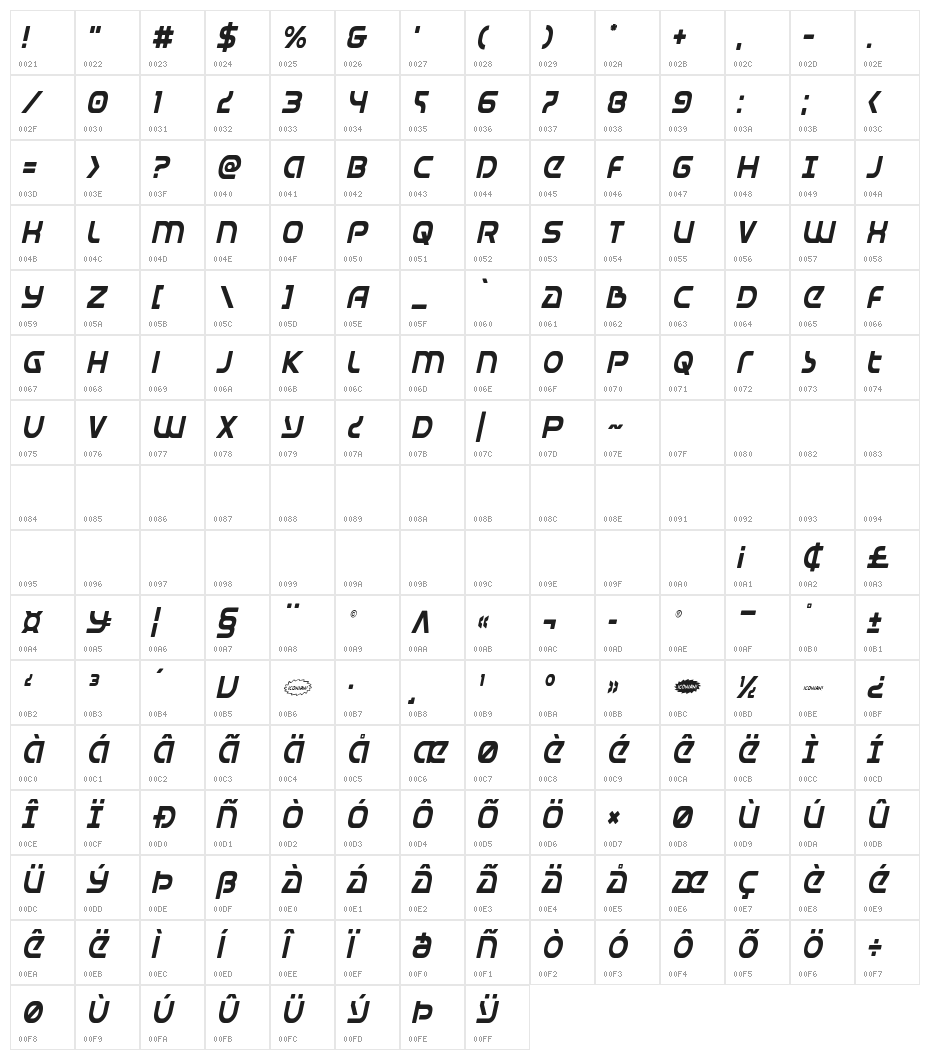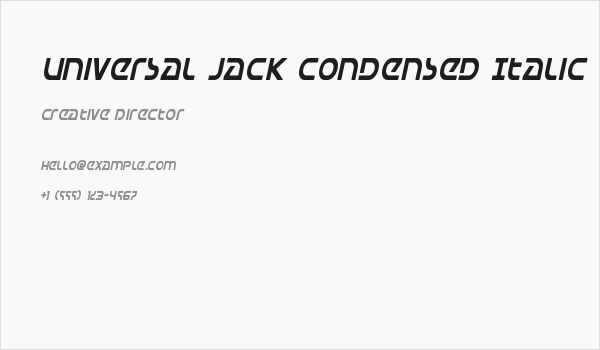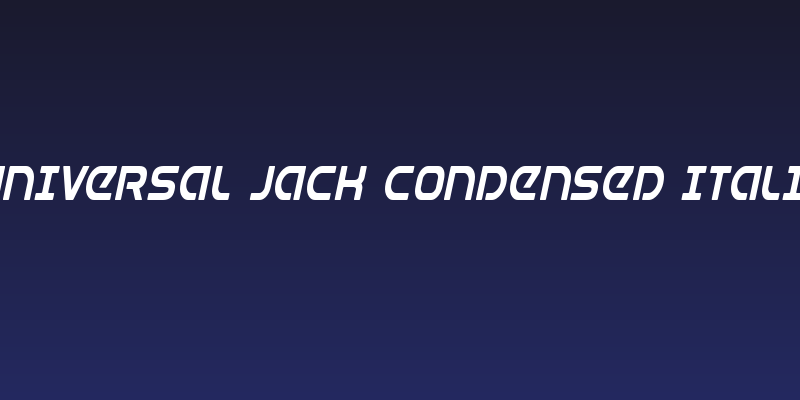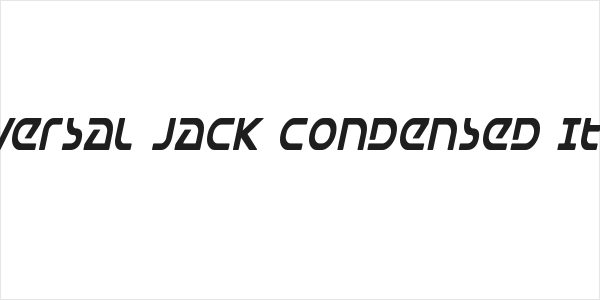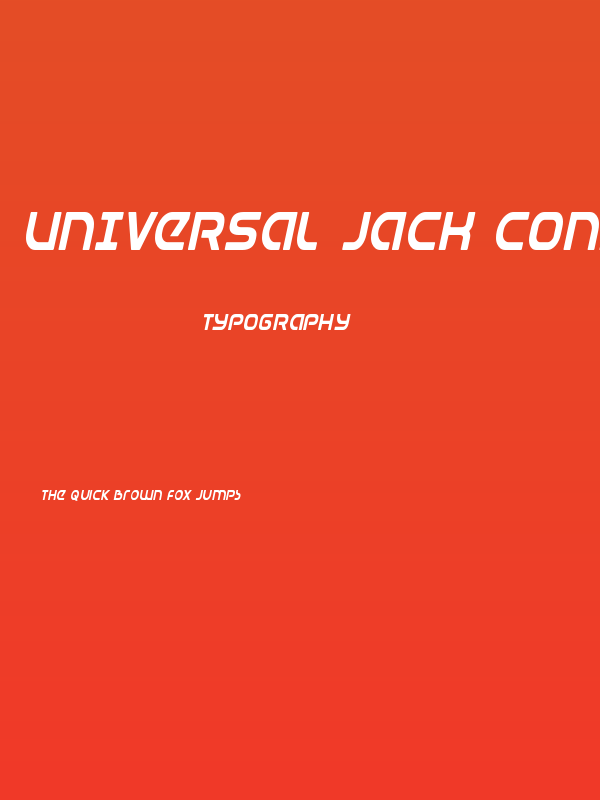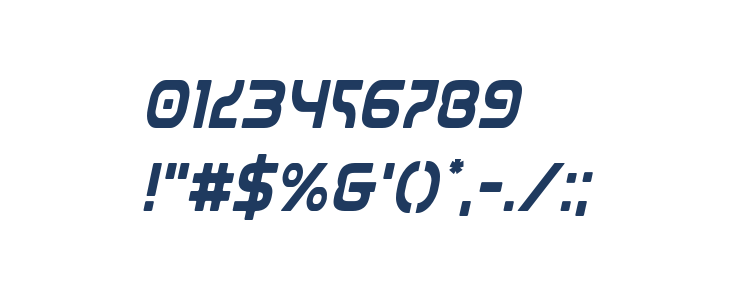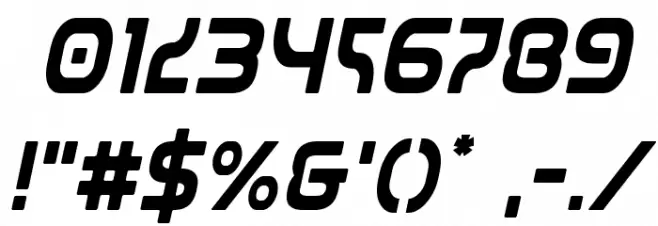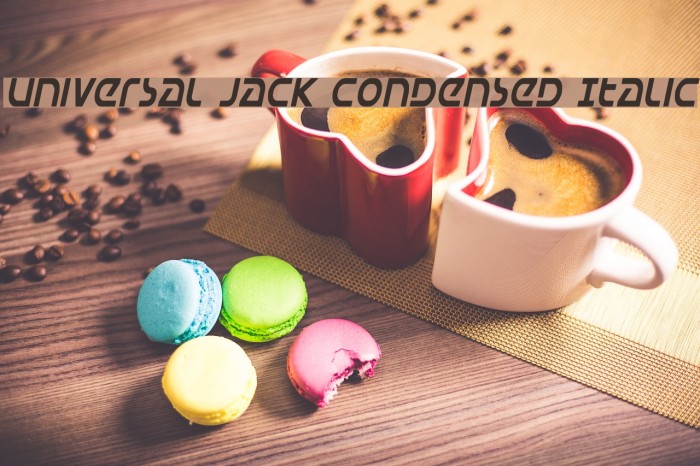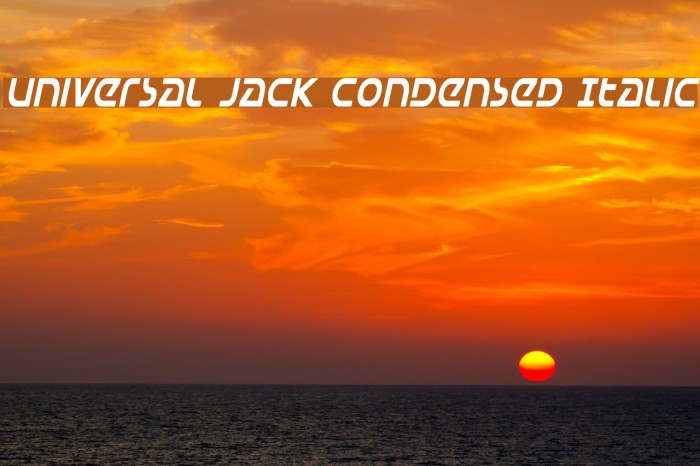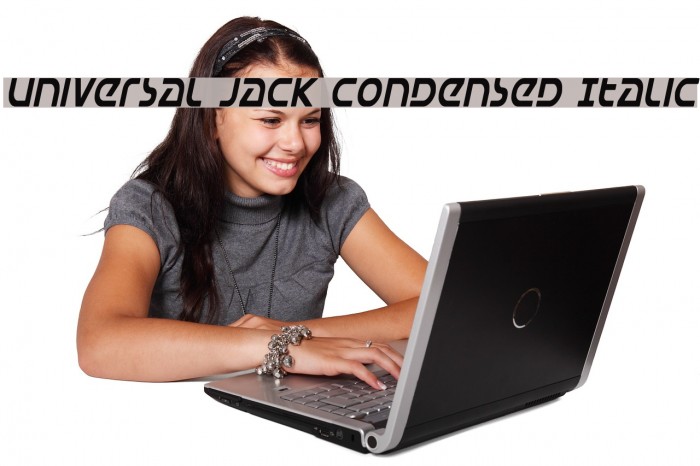
Universal Jack Condensed Italic Font
Universal Jack Condensed Italic Description
This font features a modern, condensed style with a distinct italic slant, giving it a dynamic and forward-moving appearance. The characters are bold and geometric, with smooth curves and sharp angles that create a sense of speed and efficiency. The uppercase and lowercase letters maintain a consistent style, while the numerals are clear and easily readable. Special characters are designed with the same attention to detail, ensuring uniformity across all glyphs. This font is ideal for projects that require a contemporary and energetic look, such as sports branding, technology advertisements, or dynamic headlines.
| Proposed Projects | Ideal for sports branding, technology advertisements, and dynamic headlines. |